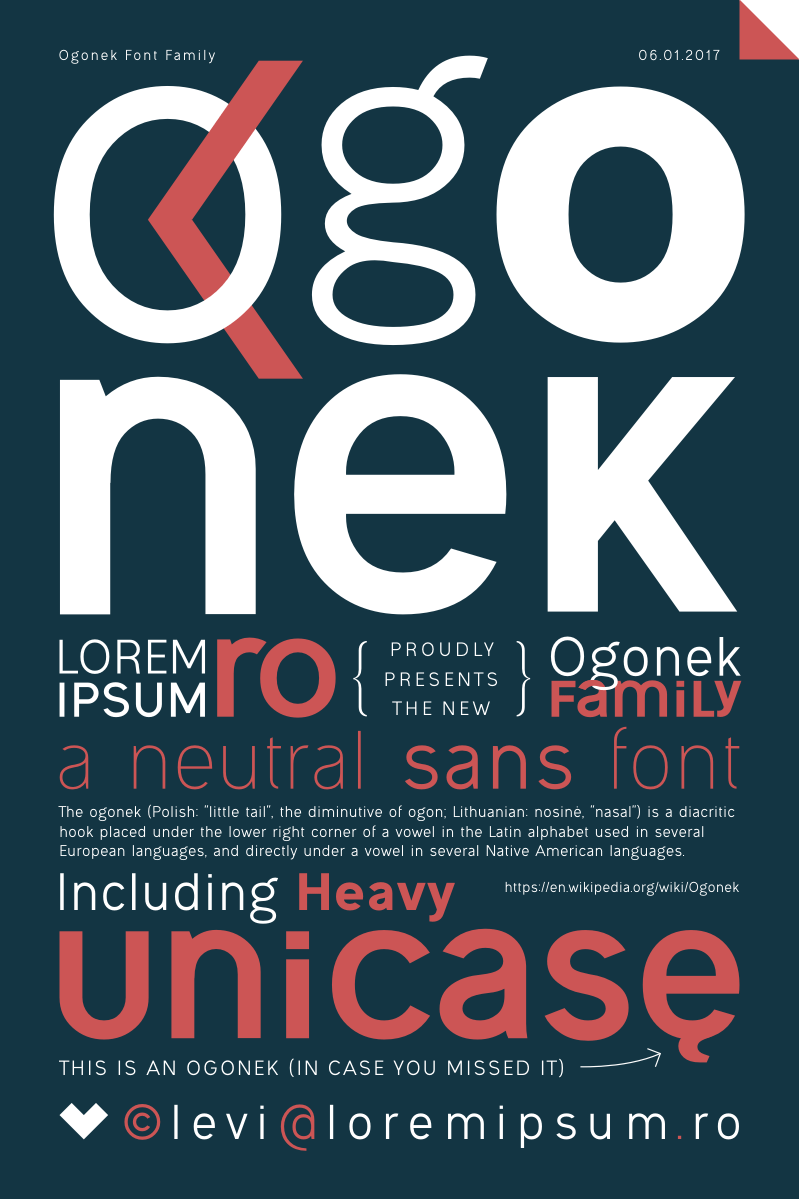
Font name: | Ogonek |
Author: | Levi Szekeres |
Note by Levi Szekeres | |
Ogonek was created with the express role of having a neutral, unsophisticated, easily readable, but hardly identifyable font, worthy of any lorem ipsum text - a case when no obvious font style is needed to distract the reader (imagine a dummy text with a dummy font!), removing hints of Arial or Helvetica and leave everything to the pure act of reading, even if at its core it's a Swiss Gothic font design and the basic character construction rules cannot be overlooked. In order to create a simple and "easy-to-follow" font, generous spacing was added to the letters and words, extra shapes and angles were used at a minimum and the open curves kept at a fair distance to allow more space in the paragraph. If I'd have to describe it, it would be "just an other random sans font like all the other", and that's what I'm after. A font with familiar shapes, created for their sole utility of forming a sentence, but one that reminds me of each favorite sans. Truth to be told, Ogonek was born out of a personal frustration regarding sans fonts, where at least one character always seemed out of place, when "not every song of the album is a top ten material". This won't make Ogonek a remix, this can go as a synthesis of most of the things I learned and loved so far in a sans font. Something between niche and cliché, to please my eyes from A to Z. |